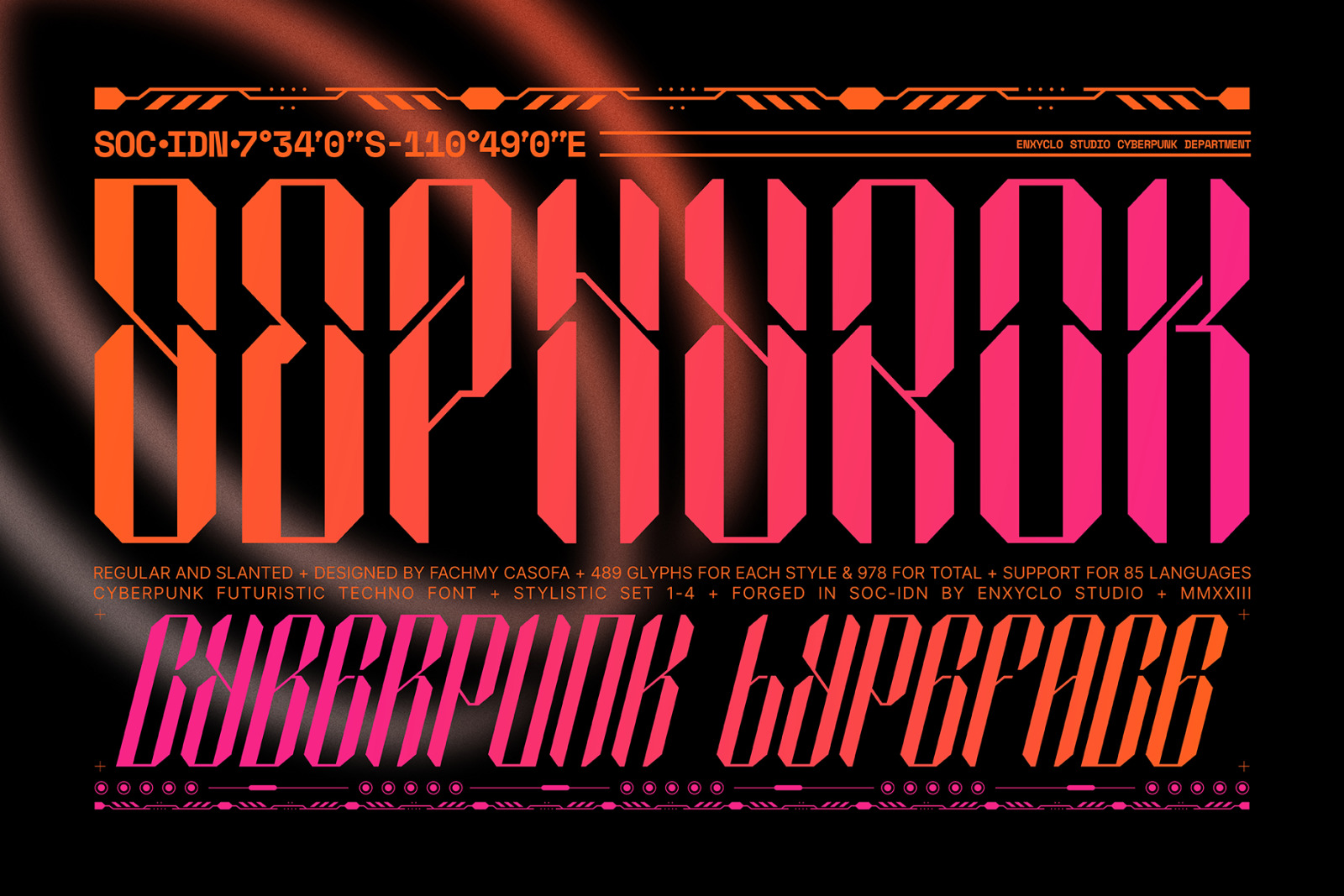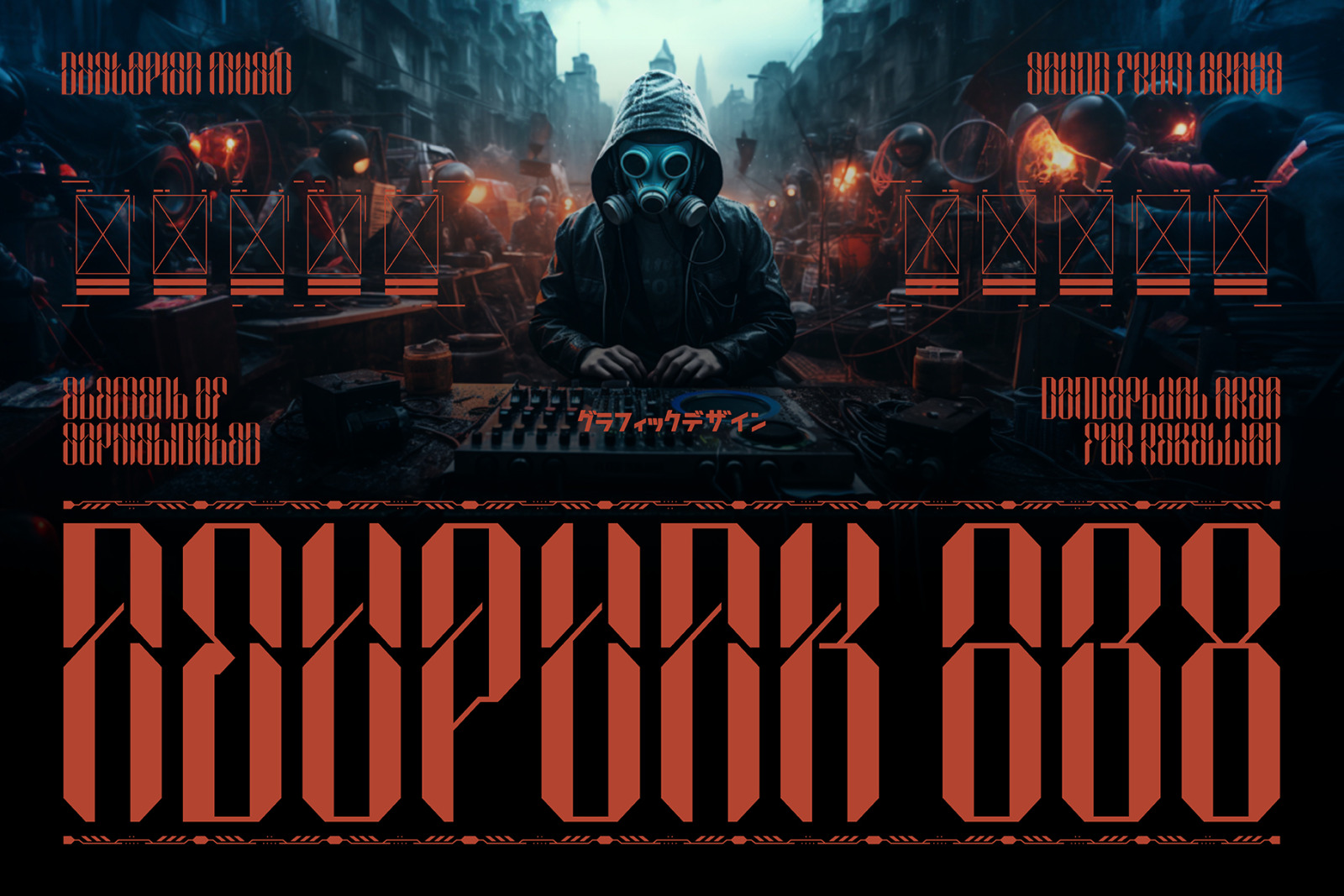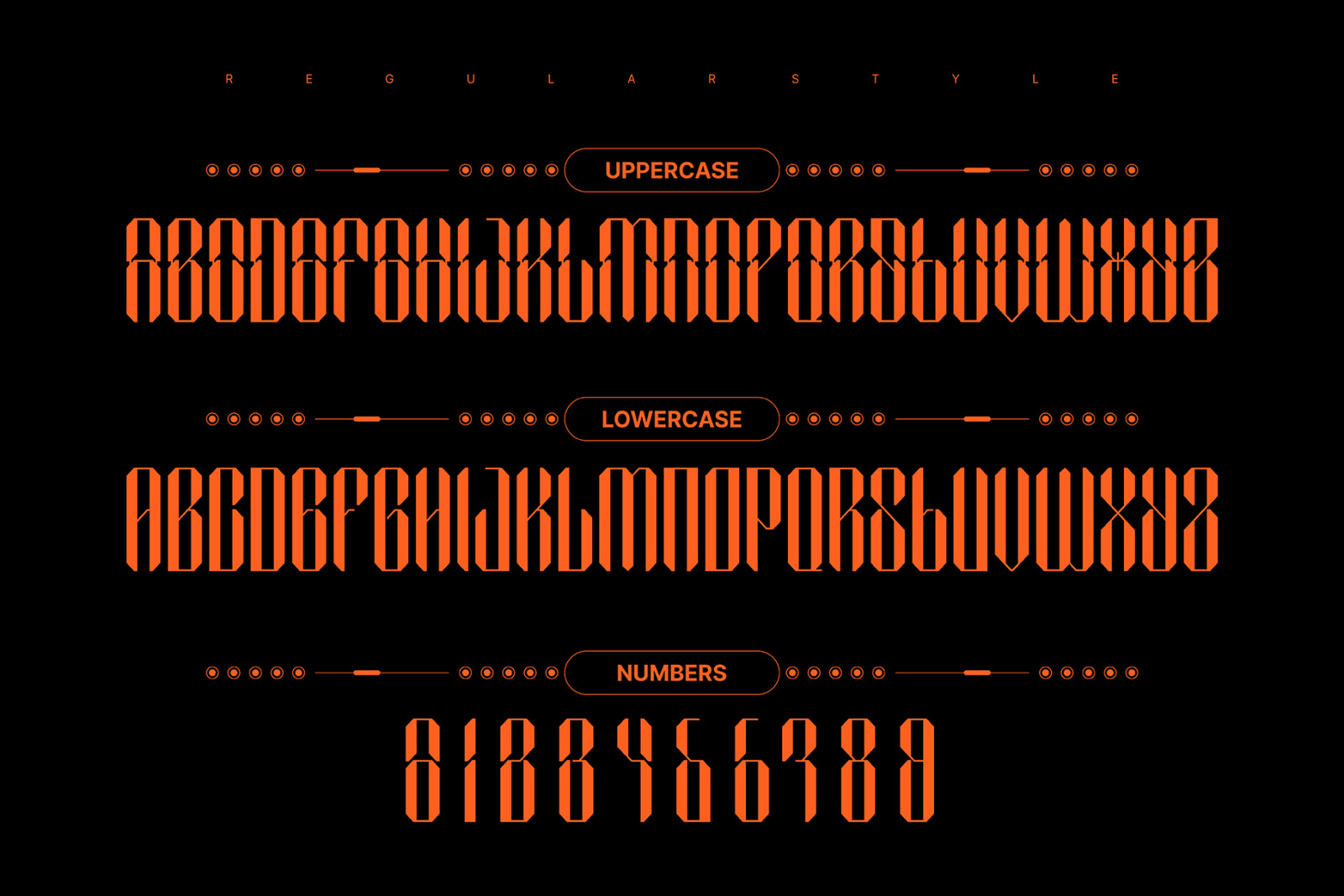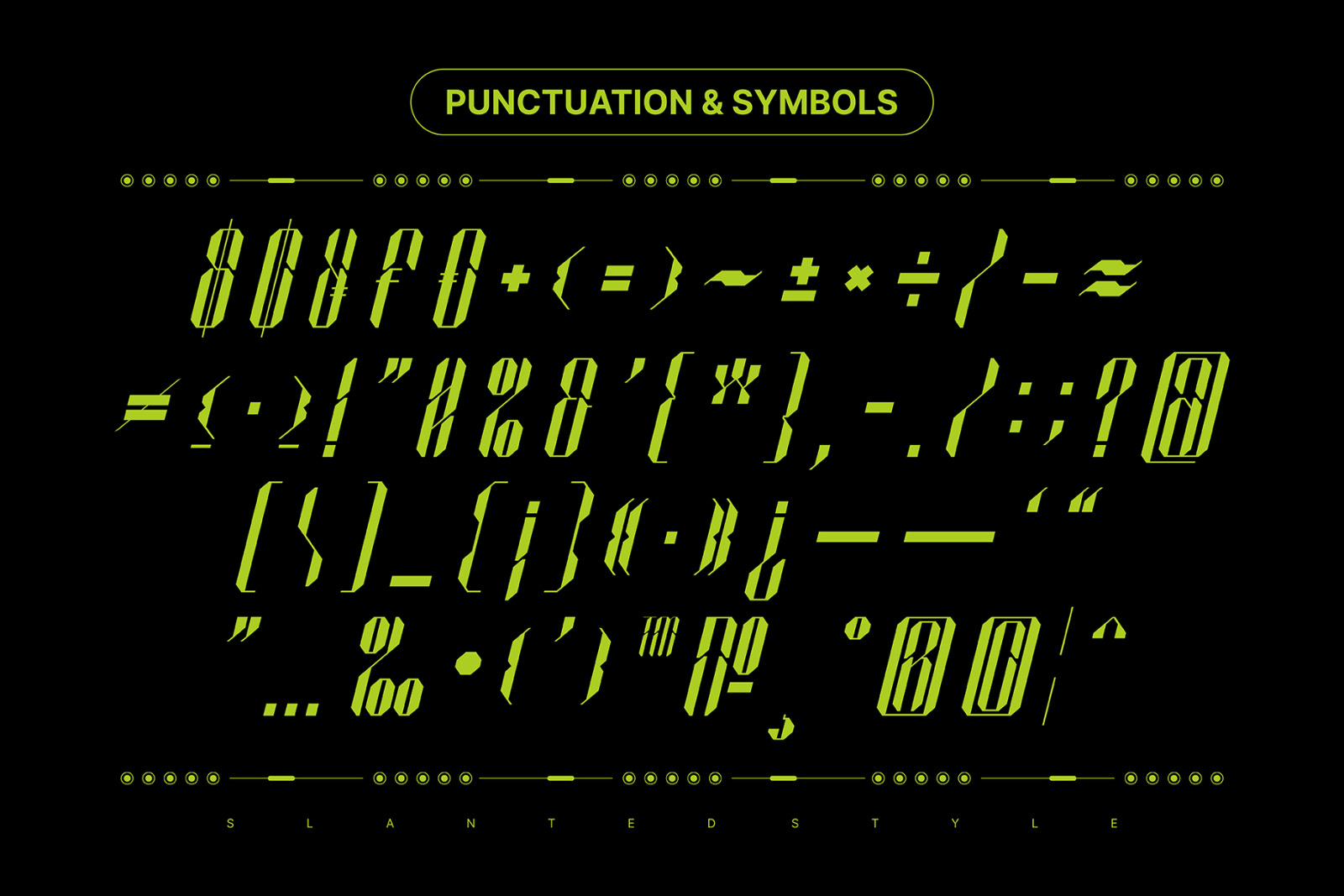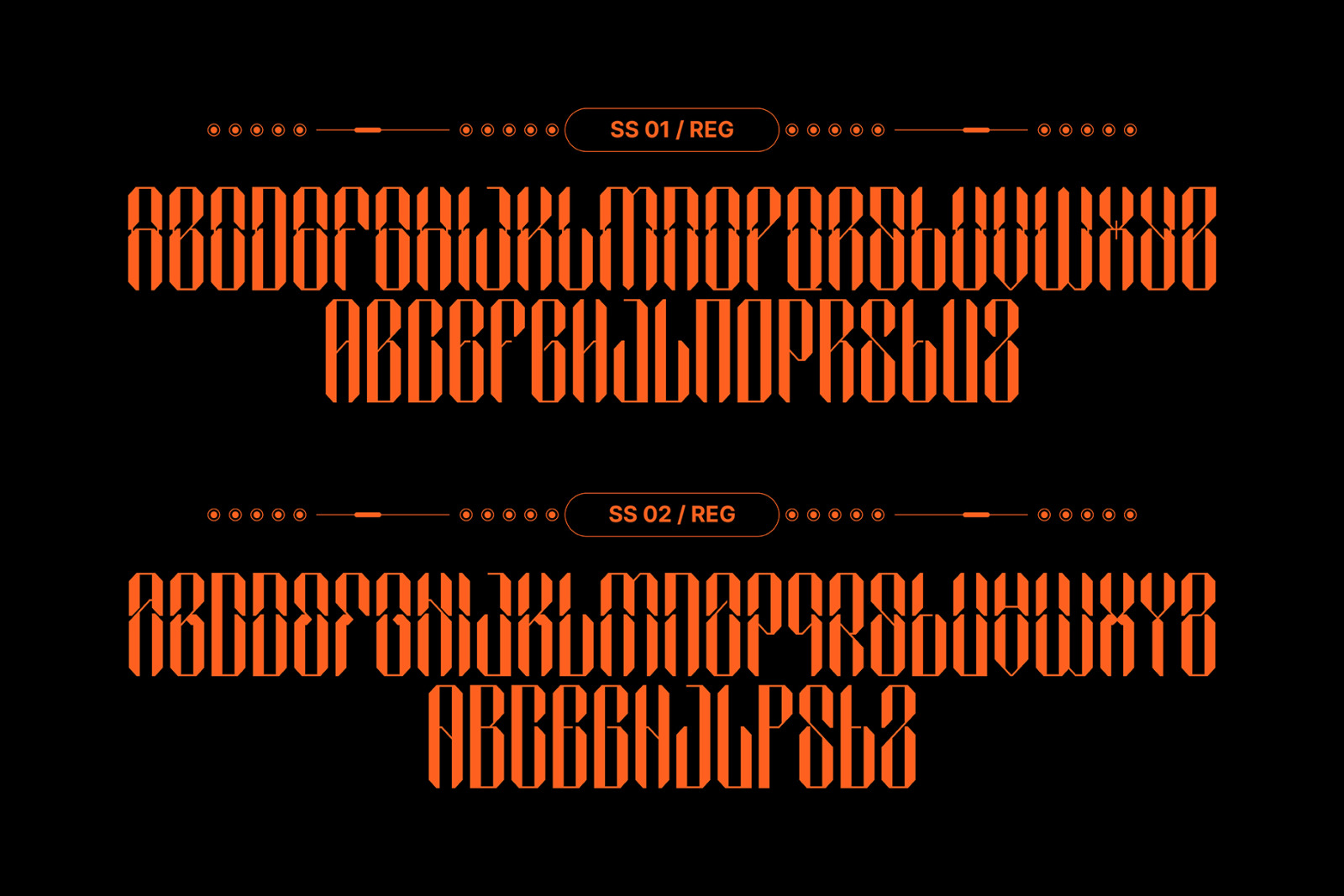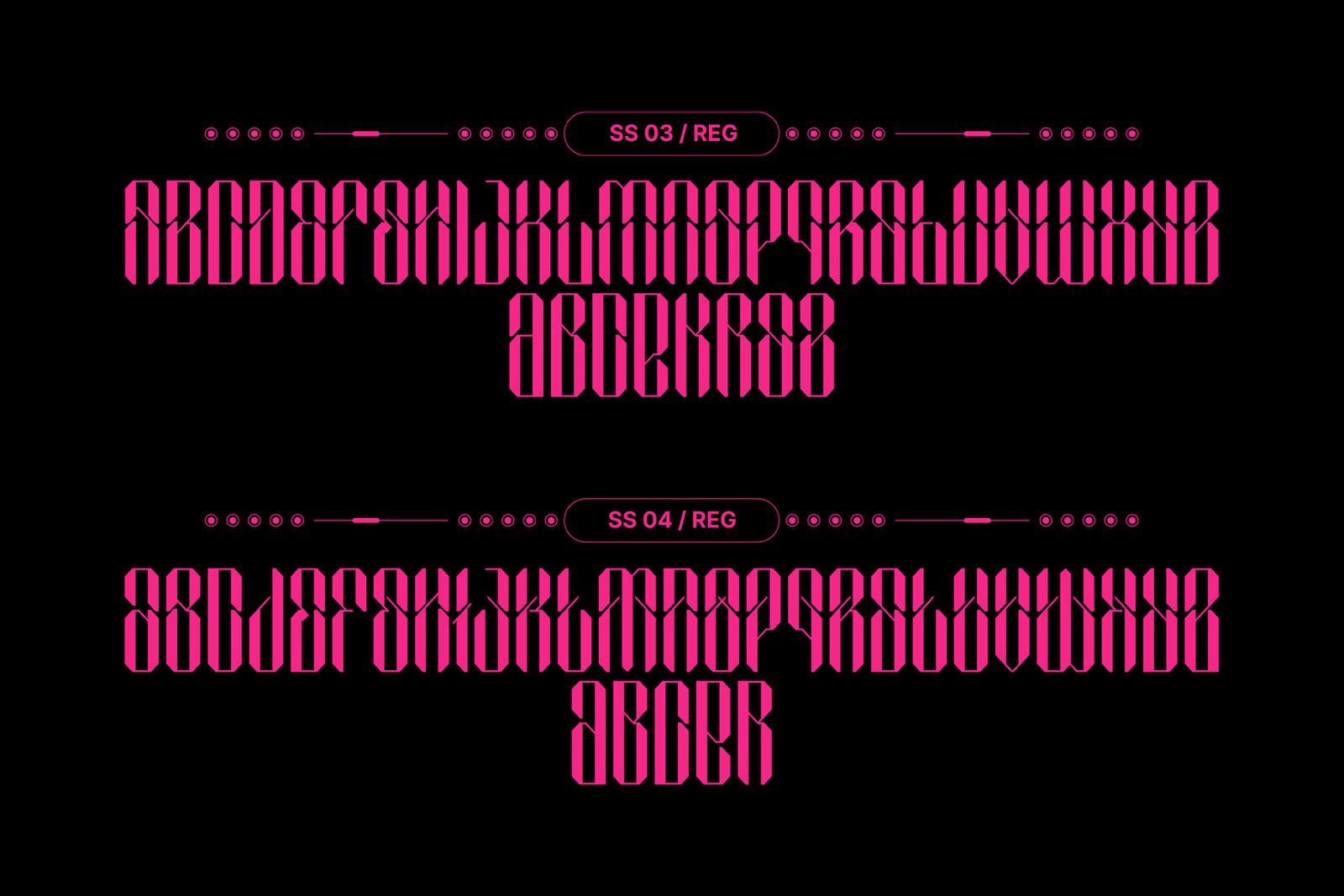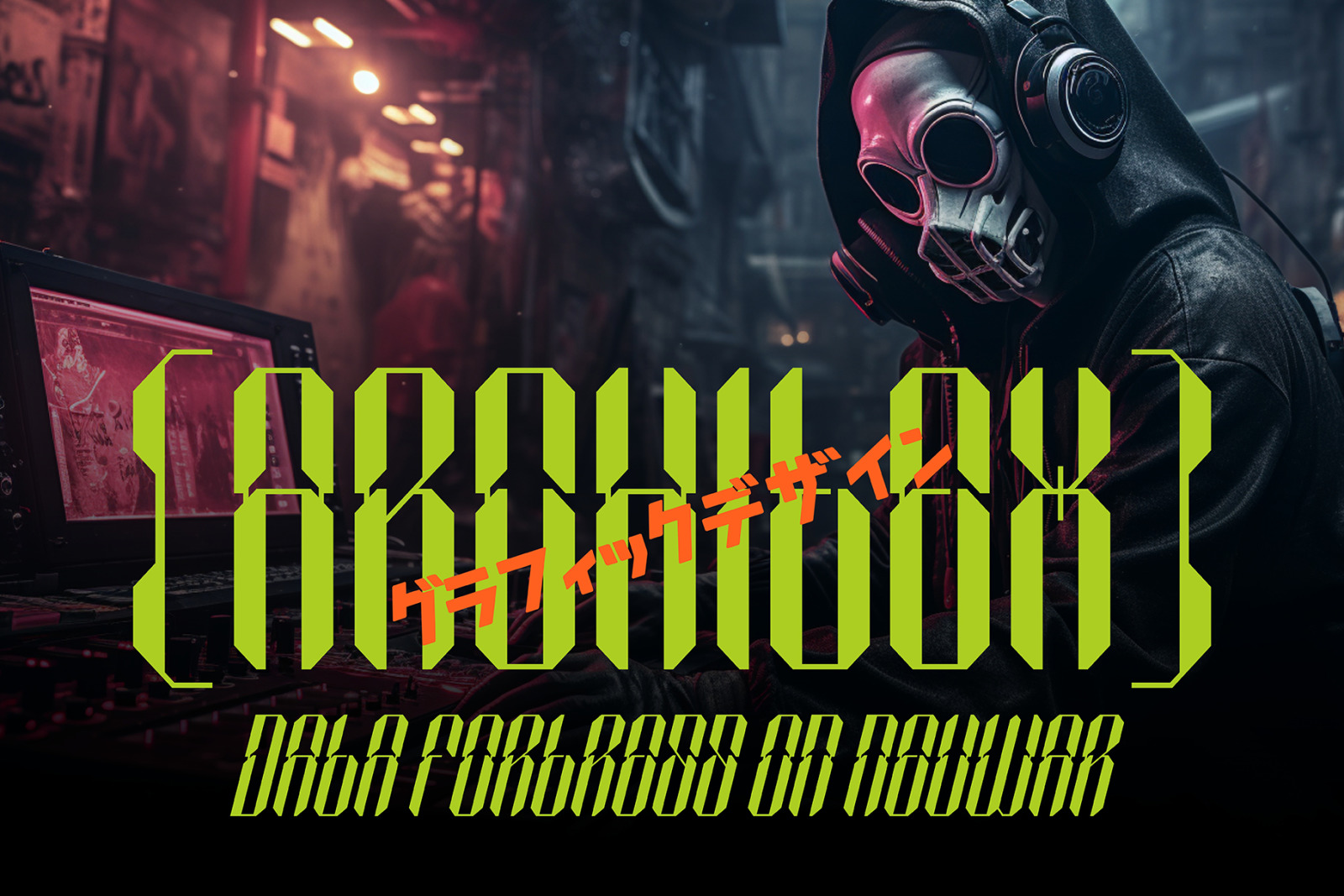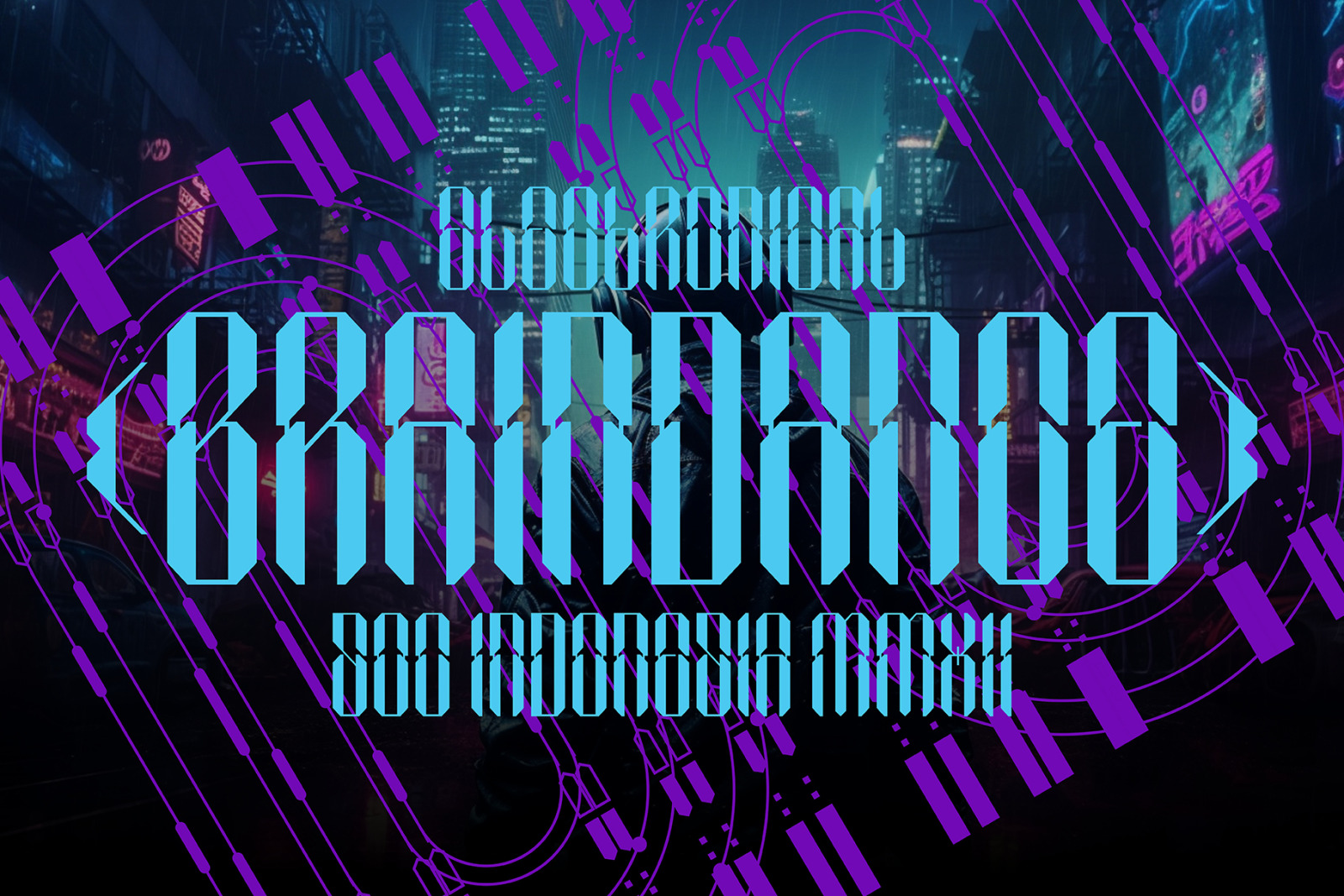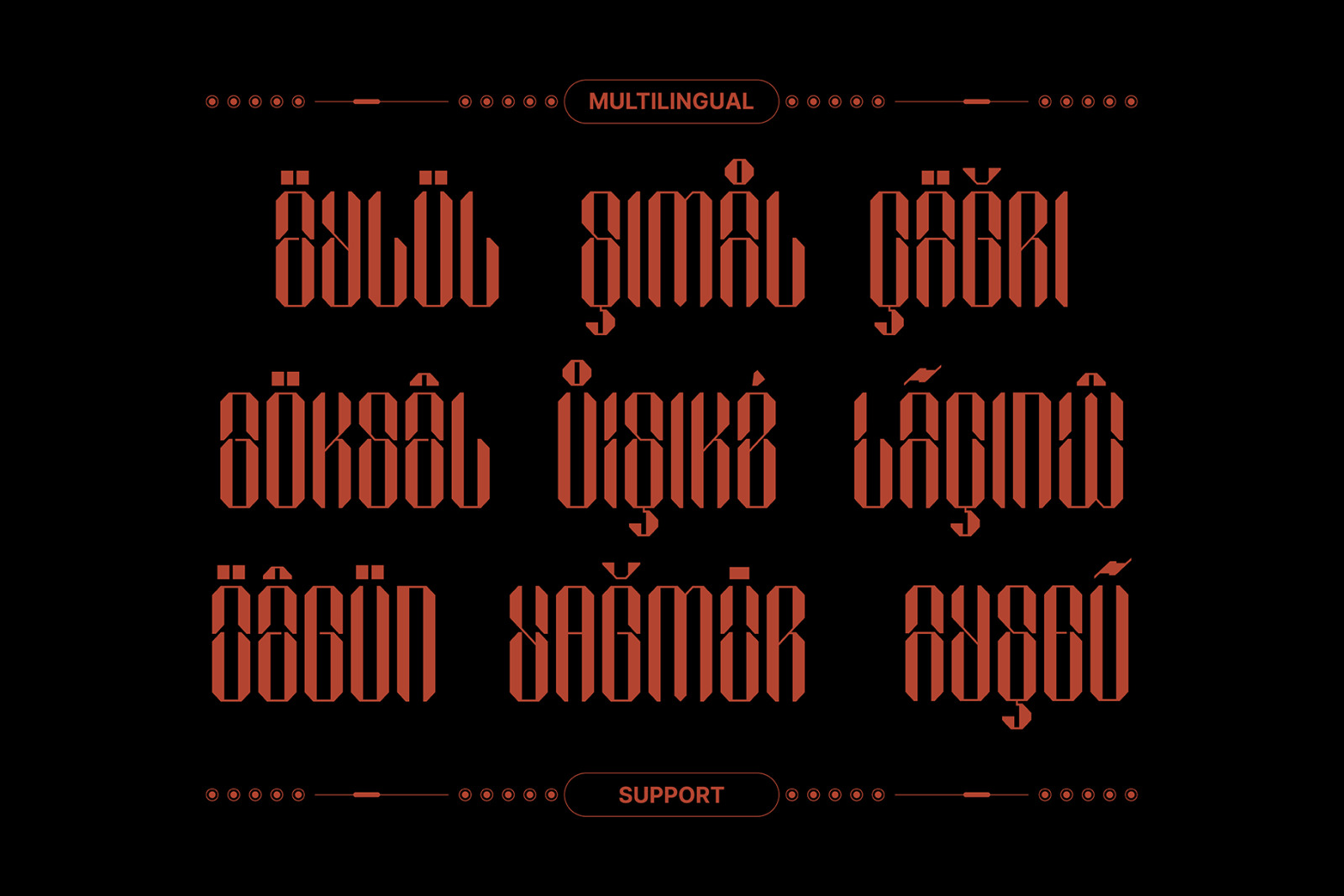
NCL SEPHYROK - CYBERPUNK FUTURISTIC TECHNO CONDENSED FONT
NCL SEPHYROK is not your ordinary font; it’s a cyberpunk futuristic techno condensed font that takes your creativity to the next level. Its futuristic aesthetics bring a whole new dimension to your designs, making them stand out. Whether you’re working on a website, poster, logo, or any other project, this font adds that extra touch of innovation and sophistication.
- 2 Styles: Regular & Slanted
- Contains 489 Glyphs for Each Style and 978 Glyphs for Total
- Numeral, Punctuation & Symbols
- Stylistic Set 1 - 4